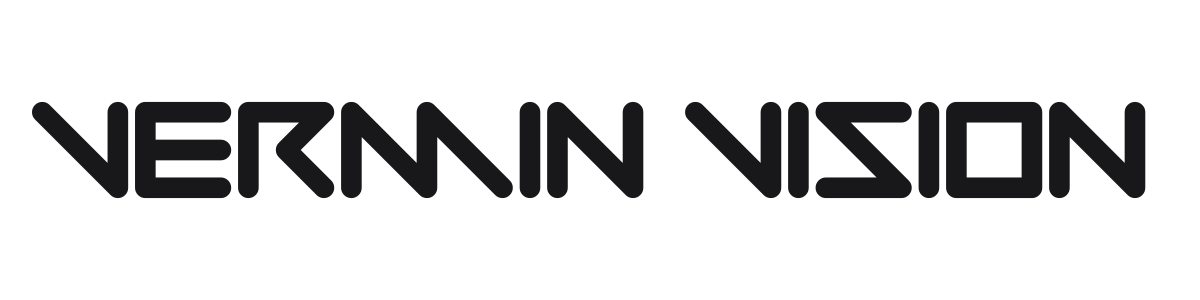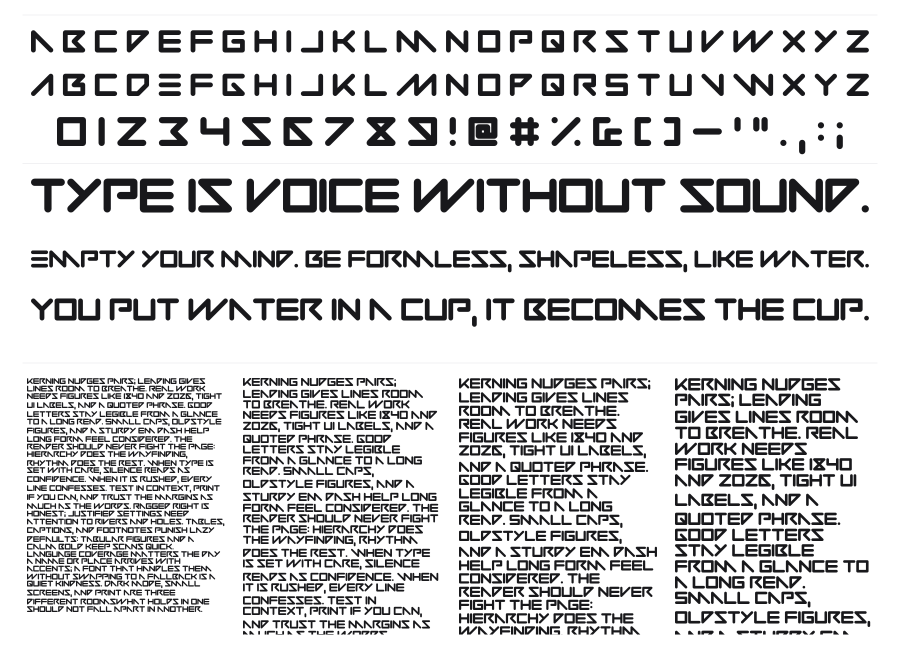
Vermin Vision
Vermin Vision is a heavy angular geometric sans with sharp diagonal cuts substituting for every curve in the design. The result is an uncompromising, mechanical look that sits squarely in sci-fi and gaming territory. It works best at large sizes where the extreme geometry reads clearly as a visual statement.